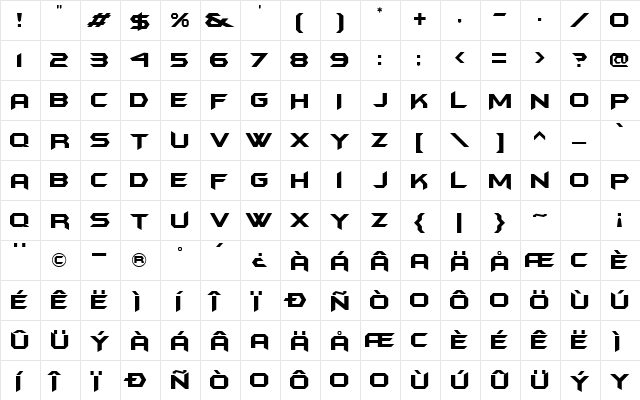
KnightAlternate Regular
Design Context for KnightAlternate Typeface
KnightAlternate is a composed and adaptable typeface that performs quietly and consistently across a wide range of design contexts.